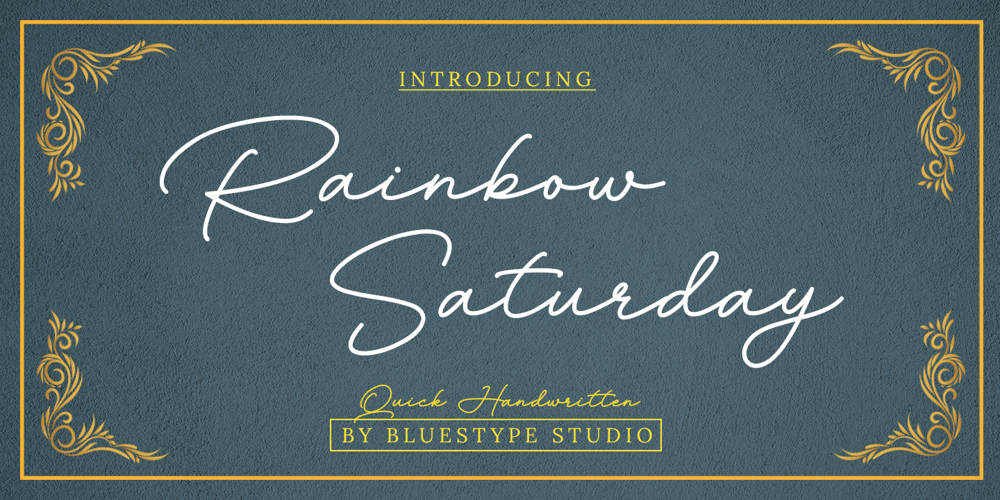
Rainbow Saturday
Rainbow Saturday font
Rainbow Saturday Font Family was designed by Jefri Dwi Alfatah and published by Bluestype Studio. Rainbow Saturday contains 1 styles and family package options. Hello !This is our newest product called Rainbow Saturday. Rainbow Saturday is a stunning signature font with a modern twist. Get inspired by its modern simplicity!This font is suitable for use on business cards, weddings, t-shirt designs, logos, magazines, quotes, fashion, watermarks, invitations, signatures.What’s include:- LigatureThank you, and don’t forget to check out our other products.